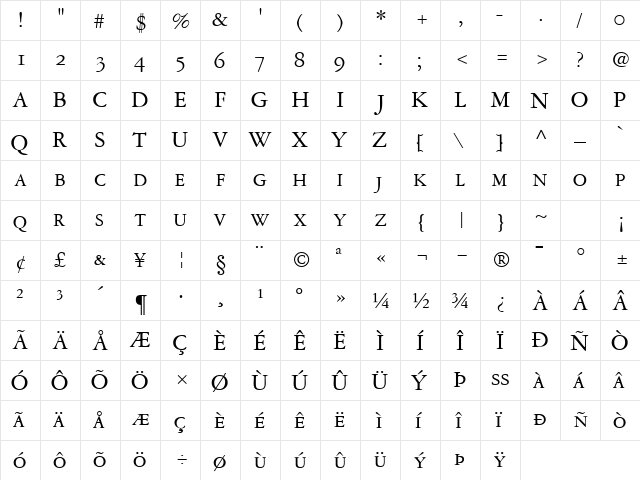
GaramondRepriseOSSCapsSSK Regular
Design Context for GaramondRepriseOSSCapsSSK Typeface
GaramondRepriseOSSCapsSSK is a composed and adaptable typeface that performs quietly and consistently across a wide range of design contexts.